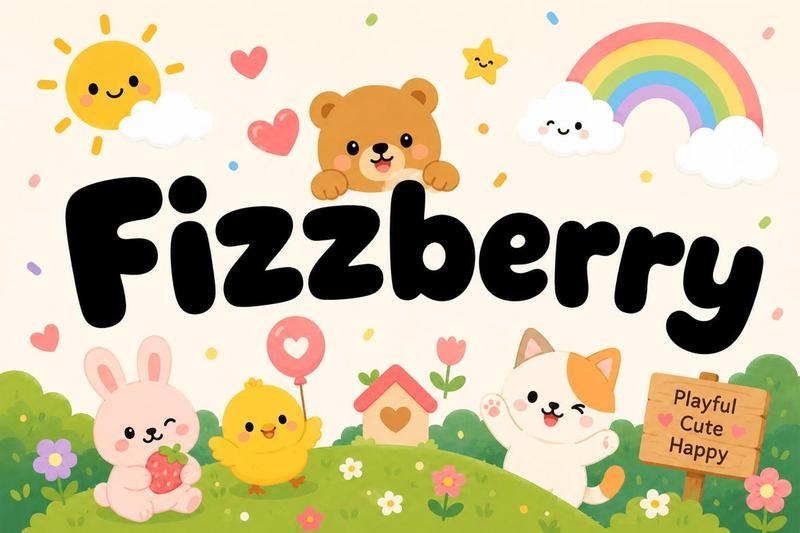
**Fizzberry – Modern Kids Font**
Meet Fizzberry, a modern kids font bursting with fun, imagination, and playful energy. Designed with cheerful letterforms and a friendly personality, Fizzberry captures the excitement of childhood while maintaining excellent readability. Its charming style makes it perfect for creating eye catching designs that appeal to children and families alike.
Carefully crafted for modern designers, Fizzberry includes uppercase and lowercase characters, numerals, punctuation, symbols, and multilingual support. The fonts playful appearance allows it to stand out in colorful designs while remaining easy to read across various layouts and sizes.